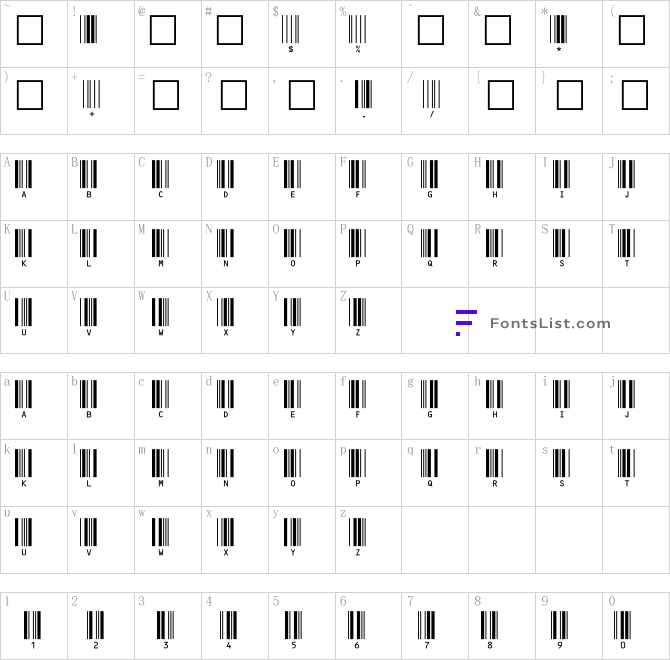
- Font Name:Barcode3_9AL
Barcode3_9AL.ttf is a very beautiful artistic font, Barcode3_9AL.ttf is widely used in the design and printing of various books and pictures,Barcode3_9AL.ttf has a strong visual impact,Barcode3_9AL.ttf is a commonly used font in newspapers, magazines and books, and is used in posters, e-commerce Poster design, store design, logo design, font design and other fields.Barcode3_9AL.